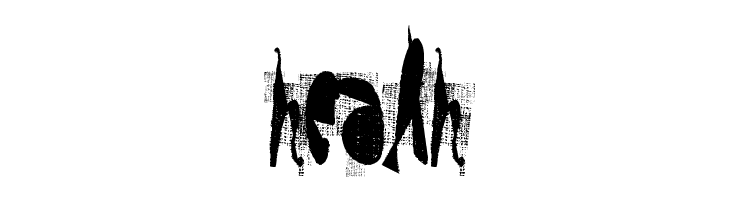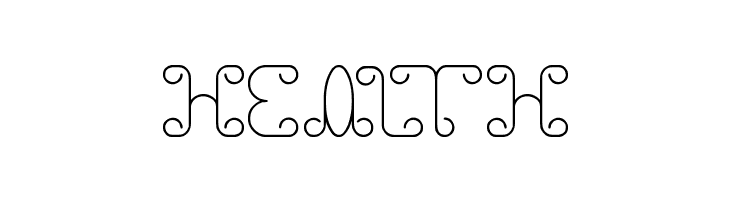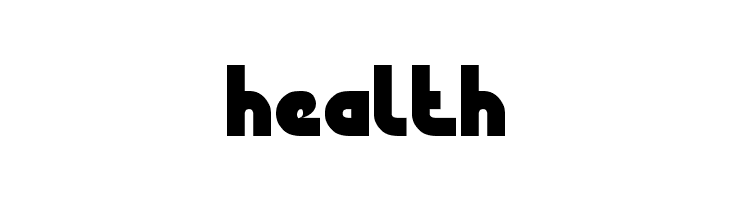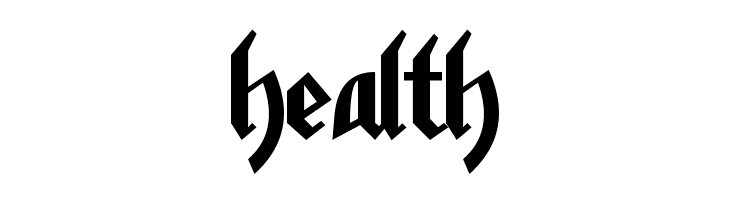
A graceful script font with fluid, connected strokes and a natural handwriting style.
A modern, artistic font with bold geometric and organic shapes.
A distressed, grungy font with a textured, artistic style.
A bold, geometric font with strong, block-like characters.
An ornate and decorative font with swirling embellishments.
A whimsical and decorative font with intricate loops and curls.